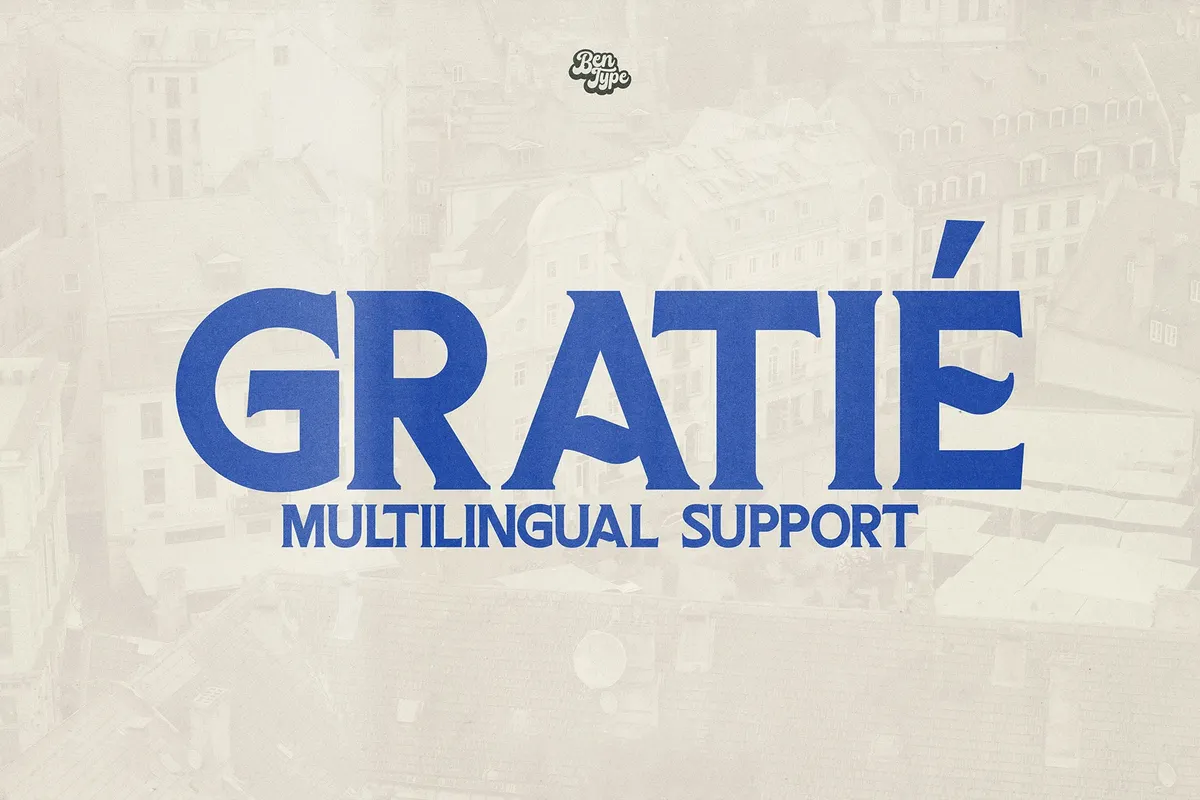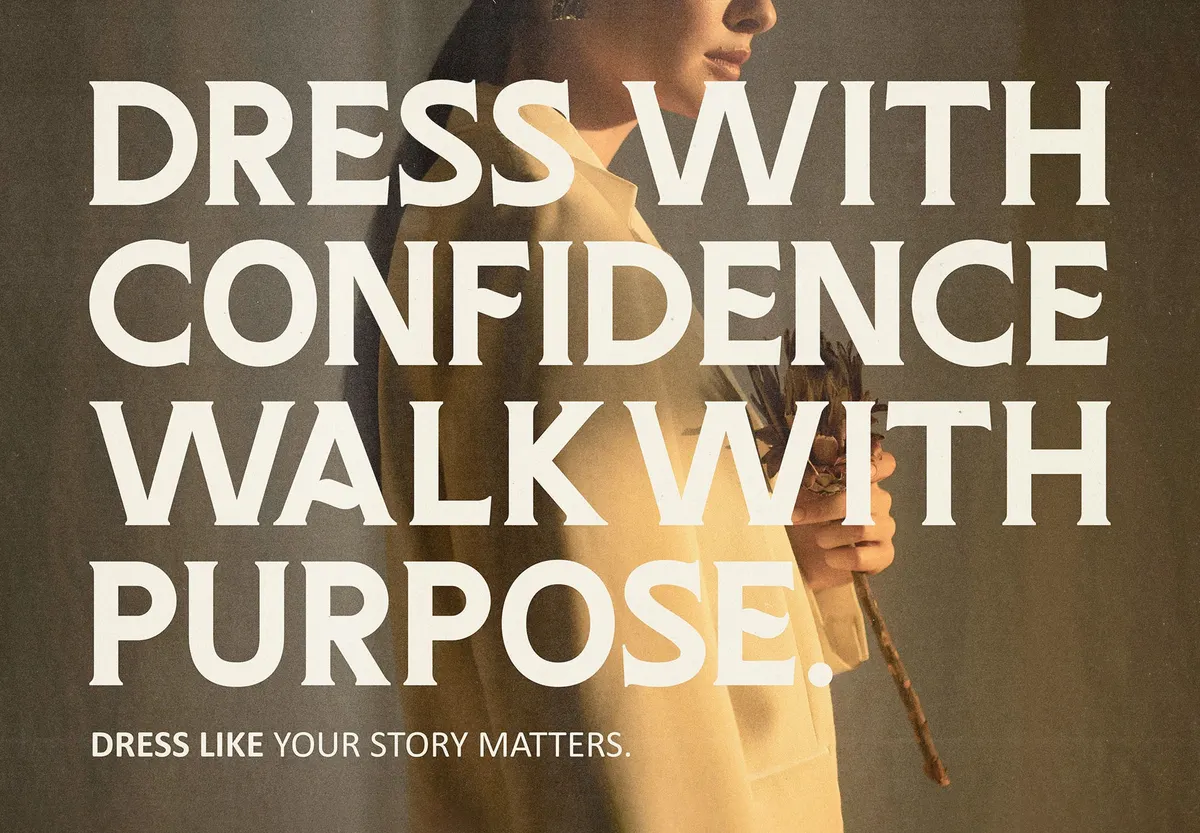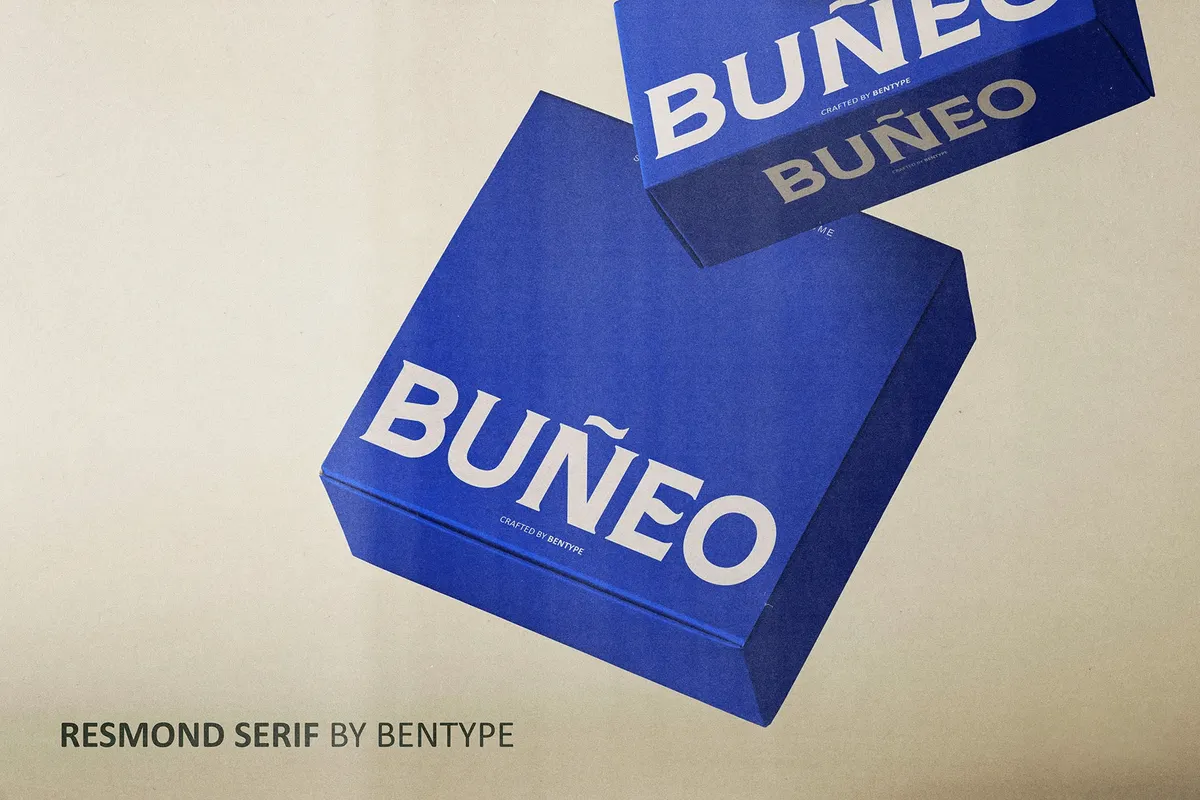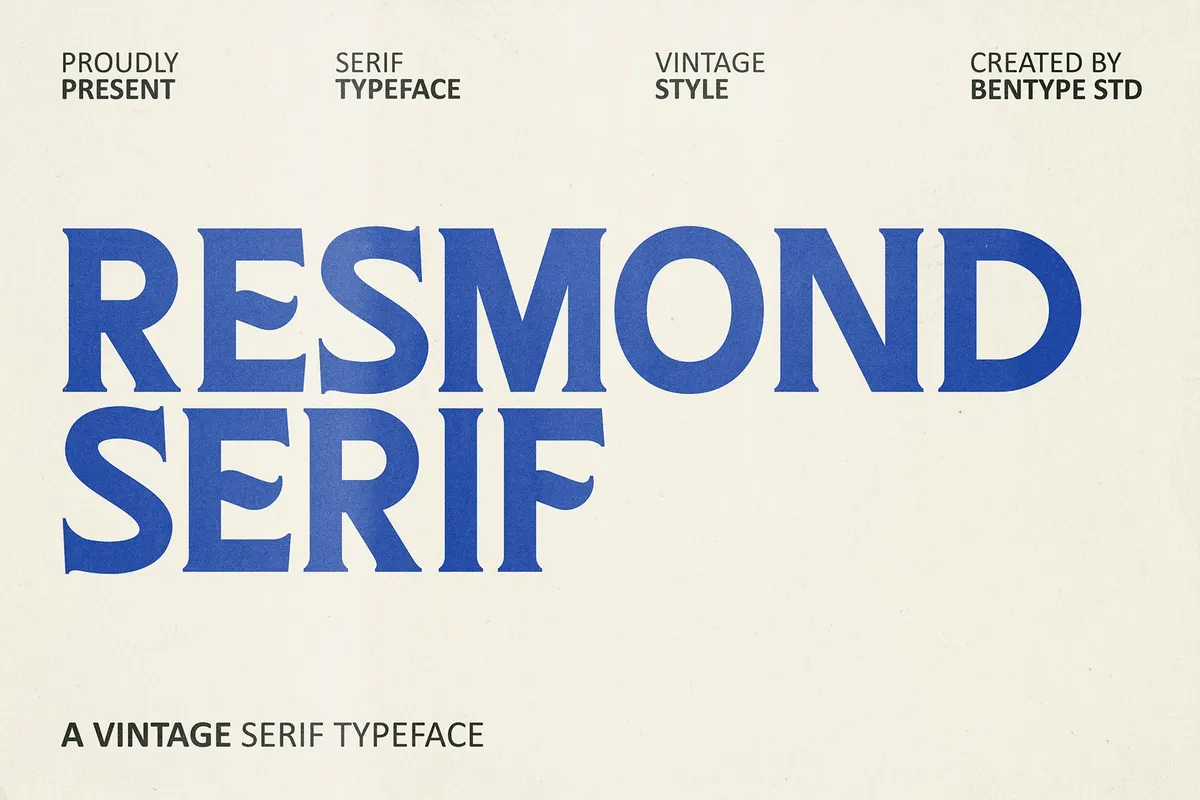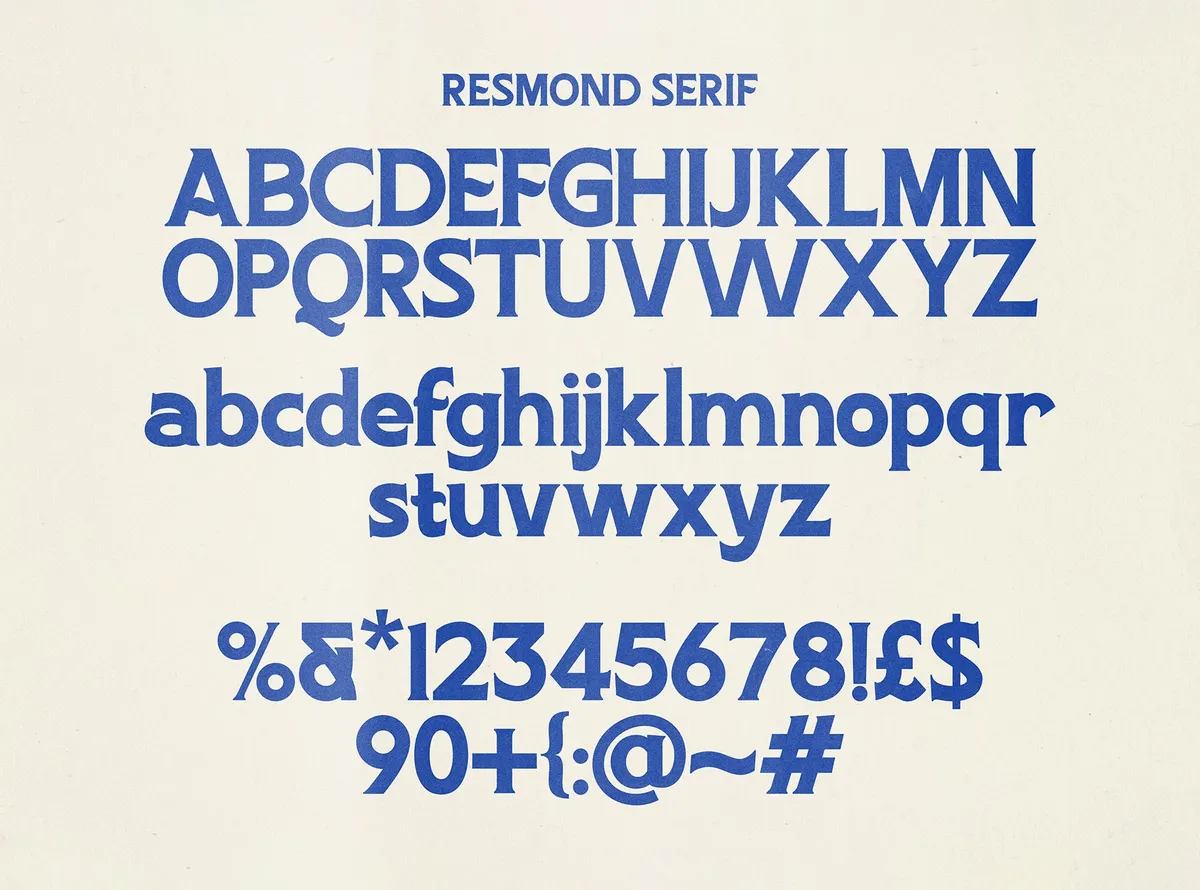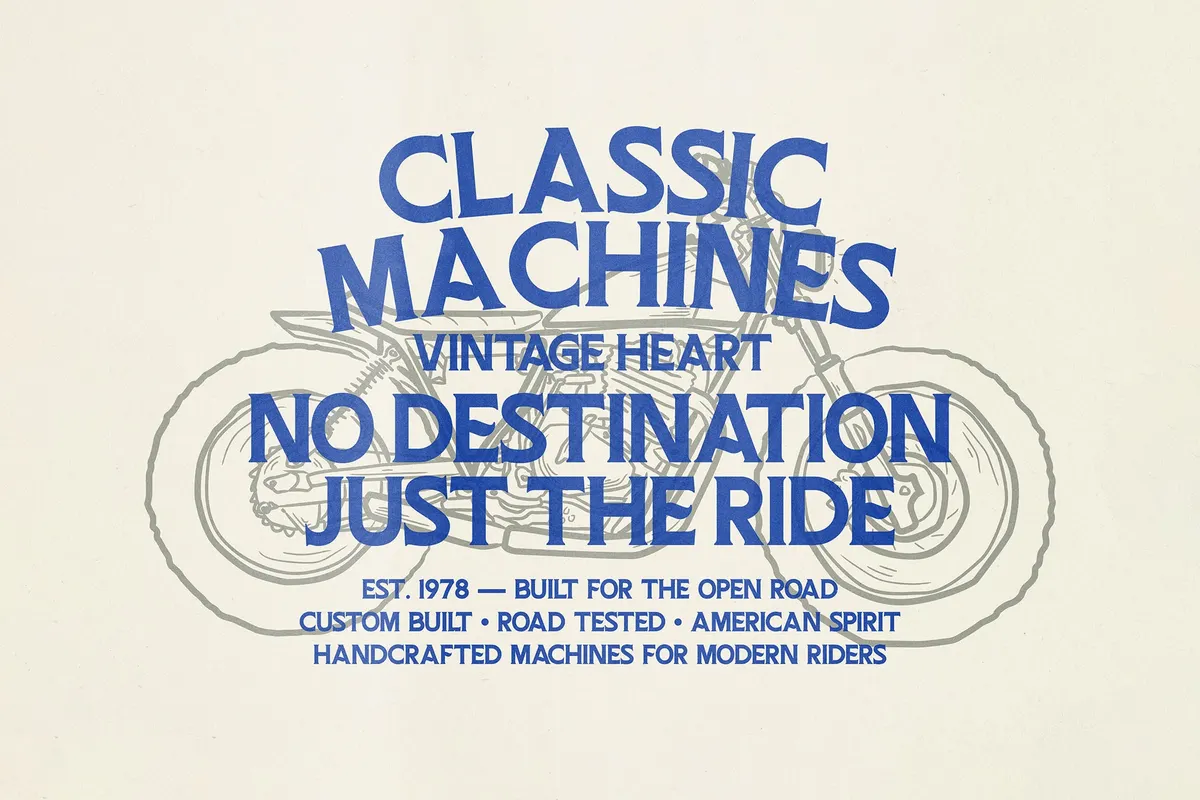
Resmond - Vintage Display Serif Font
Resmond
Resmond builds bold, chunky letterforms on a classic serif skeleton, with curved brackets and thick strokes closer to vintage sign-painting than a clean editorial cut. The weight holds even across the alphabet, so headlines keep their shape at both large and small sizes.
Use it for branding and logotypes, packaging, editorial headlines, posters, apparel graphics, and retro-inspired merchandise.
- Uppercase & lowercase;
- Numerals, punctuation & symbols;